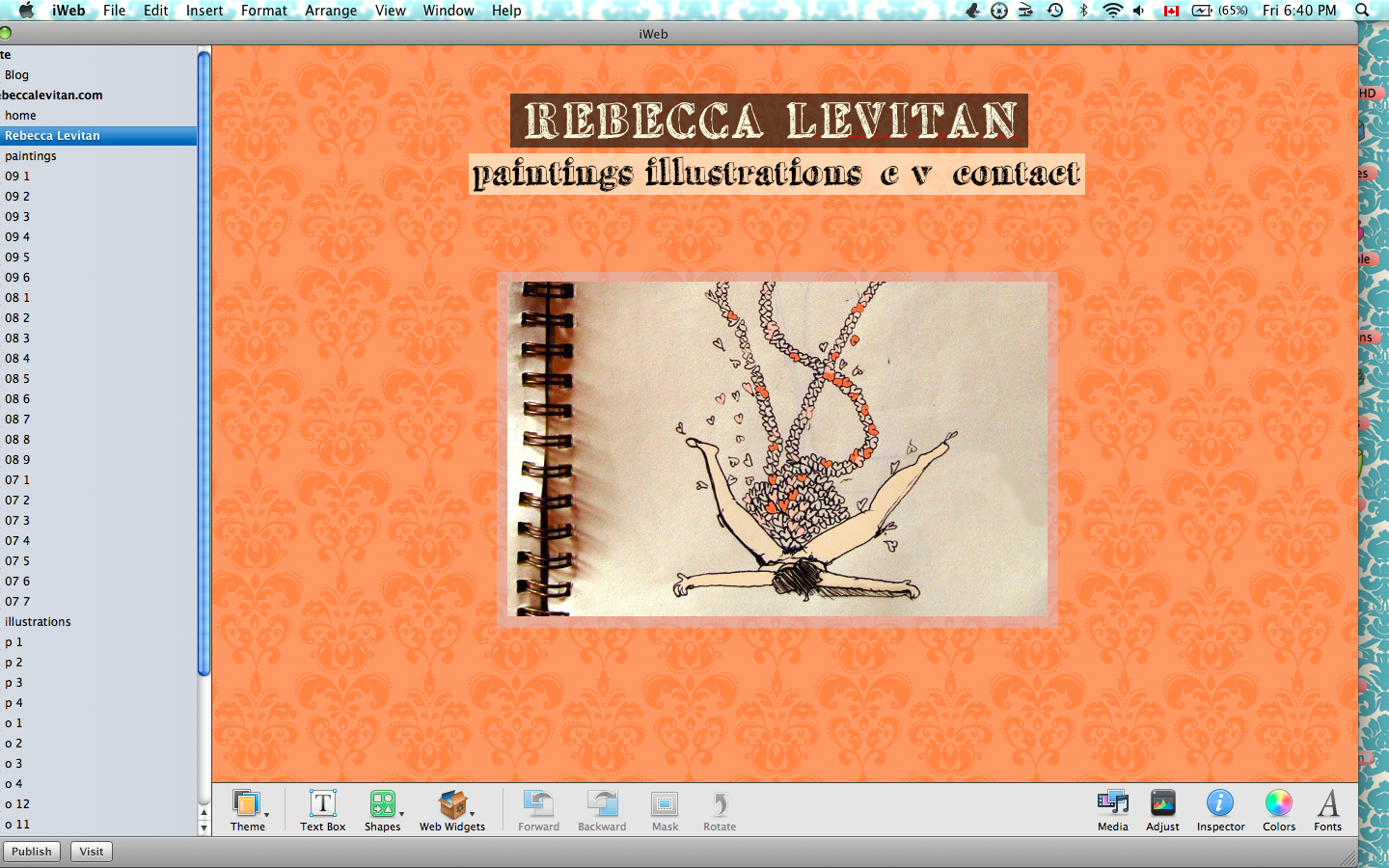
when i publish my page, the fonts look a lot less detailed, like the lines have all gotten thicker, and a lot less sharp... i'm not using a default font, but is there a quick fix? is there some setting i missed?